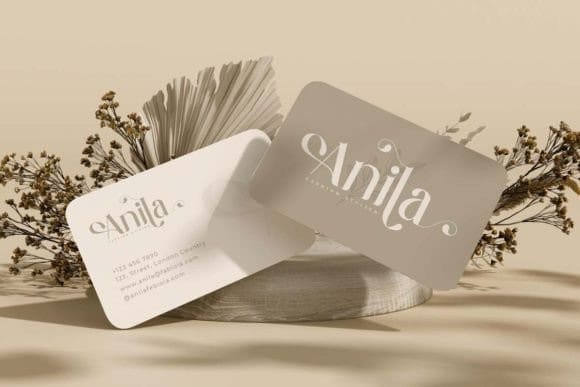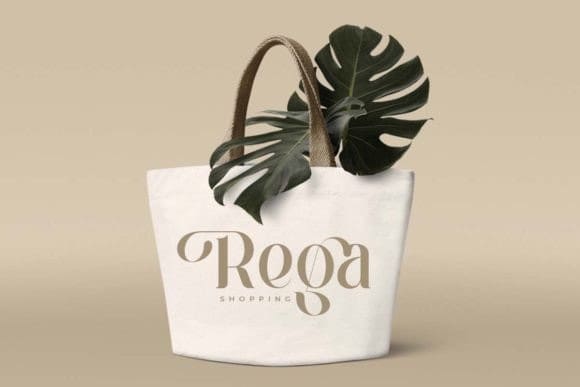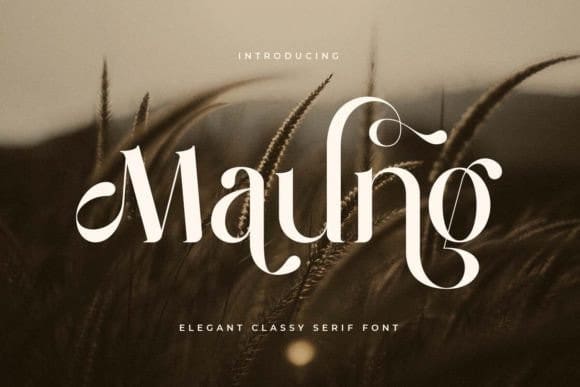
Maung Font
Maung Font is a serif font created special for elegant branding needs, with extra ligature and alternates in unique shape will be ready to add value of your brand. It so nice to leverage designer or product owner that need solutions to make their design look more classy and modern.